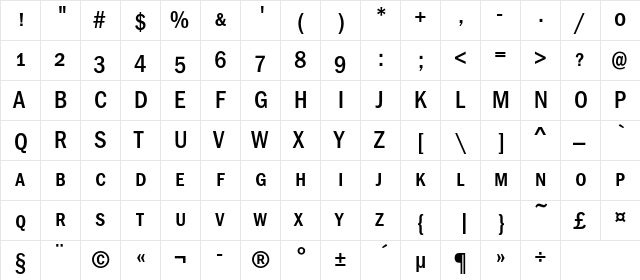
FranklinGothicMediCondSCC Regular Font Preview
FranklinGothicMediCondSCC Regular
Design Context for FranklinGothicMediCondSCC Typeface
FranklinGothicMediCondSCC takes a clean, functional approach — its unadorned letterforms prioritise legibility and work reliably across screen and print environments. Its narrow stance lets it pack a punch even in space-constrained designs.
Font Pairing: Works well alongside a characterful serif or display font that can carry the expressive load while FranklinGothicMediCondSCC handles the functional copy.
Pro Tip: Try FranklinGothicMediCondSCC in all-caps with moderate tracking for navigation and label copy — it performs well in systematic UI contexts.